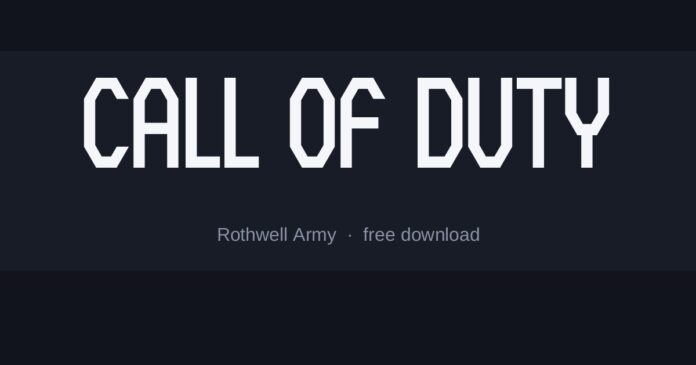
Call of Duty Font Generator
What font is the Call of Duty logo?
The series has used several marks, but the constant is a condensed military capital — flat terminals, minimal curves, and on most entries a stencil break cut through the strokes.
Recent titles have dropped the stencil in favour of a plain condensed bold, so the answer depends on which game you have in mind.
The fonts here
- Rothwell Army is the closest to the stencil-era logos, with the breaks already cut into the letters.
- Rothwell is the same design without the stencil, matching the more recent titles.
- Mesmerize Cd Bd is a clean condensed bold for subtitles and interface text.
Where the style comes from
Stencil letters exist because a stencil has to hold together — the breaks are structural, not decorative, keeping the middle of an O from falling out when the plate is cut.
Military packaging used them everywhere, so the form carries the association automatically. That is why the stencil break does more work than the specific proportions.
Setting it well
- Condense hard; the logos are much narrower than a default bold
- If you add wear, keep it at the edges — evenly distressed letters look like a filter rather than use
- Desaturated olive or grey on black is closer than pure white, which reads as sport rather than military
Is this the exact font used for Call of Duty?
Not exactly. The original lettering was custom drawn or is not publicly licensed, so the fonts here are close recreations. Rothwell Army is the nearest match we have found.